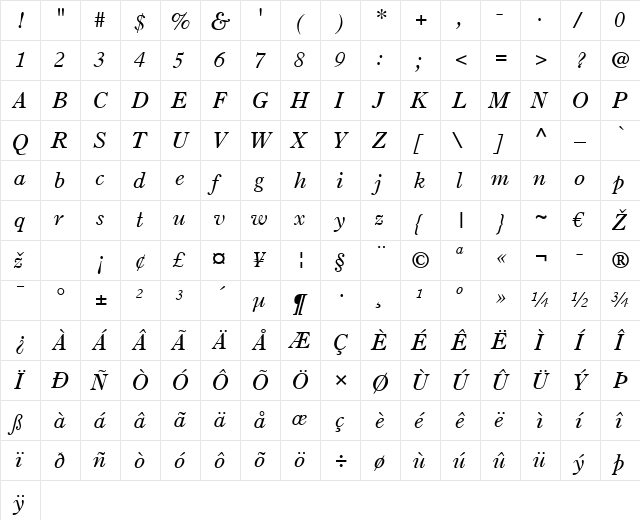
OldStyle7 LT Italic
Design Context for OldStyle7 LT Typeface
OldStyle7 LT brings classic typographic sensibility to the table — its serifs and measured letterforms reflect centuries of print heritage. Its italic angle brings a sense of urgency and motion to the letterforms. The delicate stroke weight brings airiness and refinement to layouts.
Pro Tip: Set OldStyle7 LT at slightly larger body copy sizes than you would a regular-weight serif to compensate for its delicate stroke contrast.